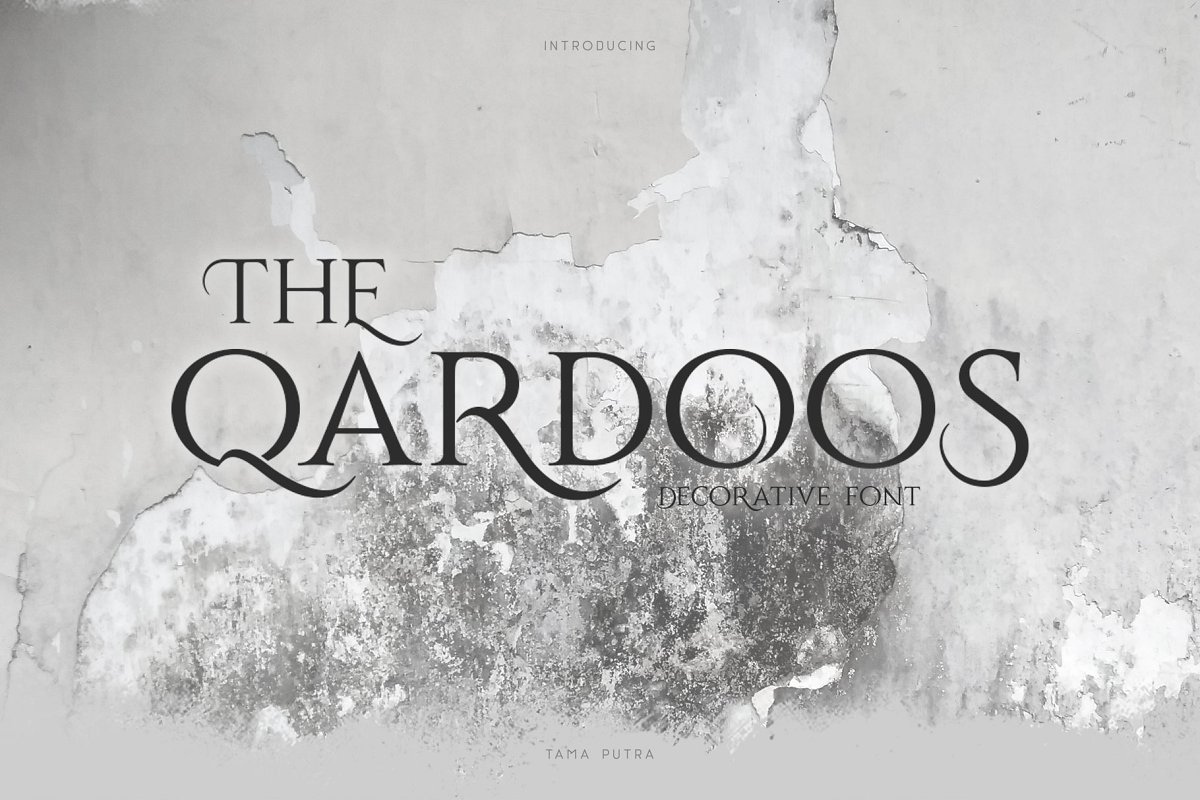
Qardoos Decorative Font
Qardoos Decorative Font is perfect for ornate branding projects, luxury invitation design, ceremonial event materials, cultural celebration graphics, elegant packaging solutions, premium restaurant menus, sophisticated wedding stationery, and refined advertising campaigns. This exquisite typeface works magnificently in both digital applications and print media where ornamental beauty and decorative elegance are essential design considerations.
What makes Qardoos Decorative Font so exciting is its masterful interpretation of traditional ornamental artistry through intricate letterforms that seem crafted by skilled artisans with generations of decorative expertise. The font features elaborate characters with ornate flourishes, ceremonial proportions, and decorative details that evoke the rich heritage of classical ornamentation and cultural craftsmanship. Its luxurious personality and artistic heritage make it ideal for brands seeking to communicate prestige, cultural sophistication, and the timeless beauty of decorative arts while maintaining excellent readability across ceremonial applications.
The Qardoos Decorative Font family includes multiple ornamental variations with different decorative intensities, along with elaborate capitals and cultural embellishments. Each style maintains the typeface's ornate character while offering comprehensive character sets including decorative numerals, ceremonial punctuation marks, and special symbols designed to enhance luxury communications and elegant branding efforts across various cultural contexts.
This remarkable typeface represents the perfect marriage of traditional ornamentation and contemporary luxury design for premium and cultural industries. Whether you're developing luxury hospitality identities, creating ceremonial event materials, or designing cultural celebration promotions, Qardoos Decorative Font Free Download provides the ornamental sophistication and versatility needed to captivate audiences who appreciate fine craftsmanship. The font's decorative heritage makes it particularly effective for luxury hotels, cultural institutions, high-end event planners, and businesses celebrating the artistic beauty of traditional decorative arts.
The carefully crafted ornamental details and optimized ceremonial performance in Qardoos Decorative Font ensure both artistic authenticity and clear communication across all luxury applications. Its elaborate presence makes it perfect for premium branding, ceremonial marketing materials, and cultural communications where its full decorative character can create unforgettable impressions and establish immediate association with luxury, tradition, and ornamental excellence.